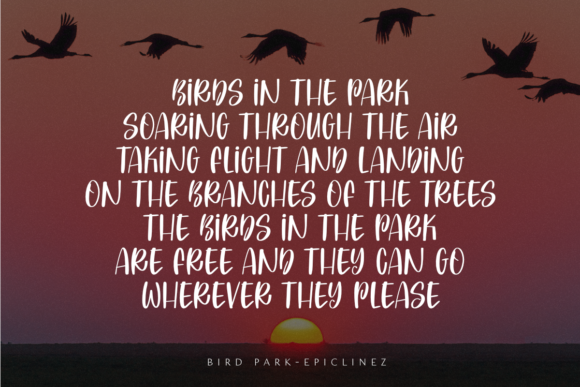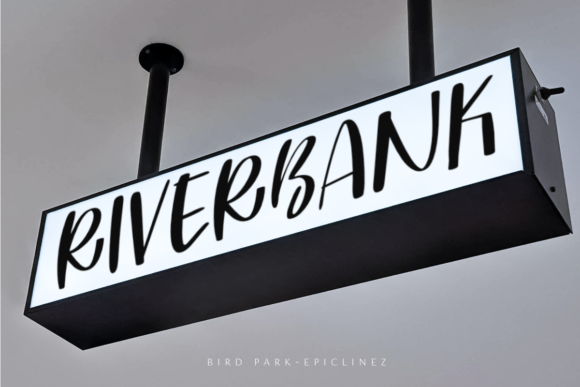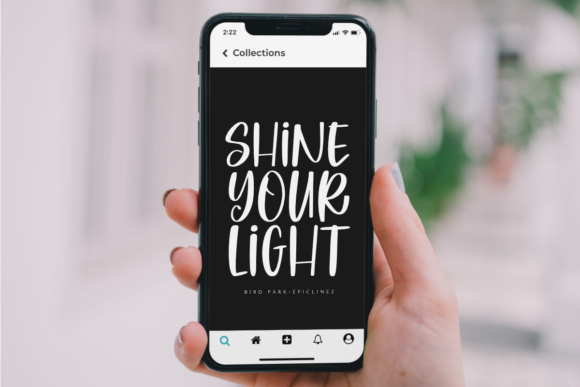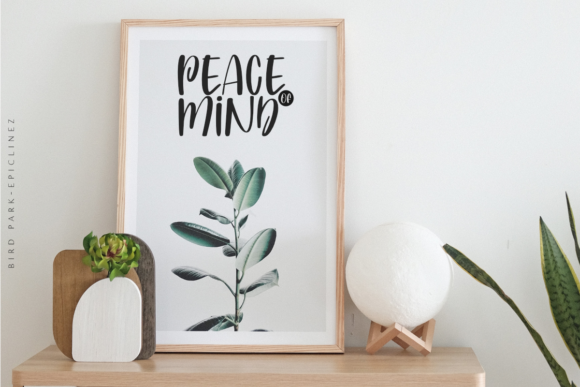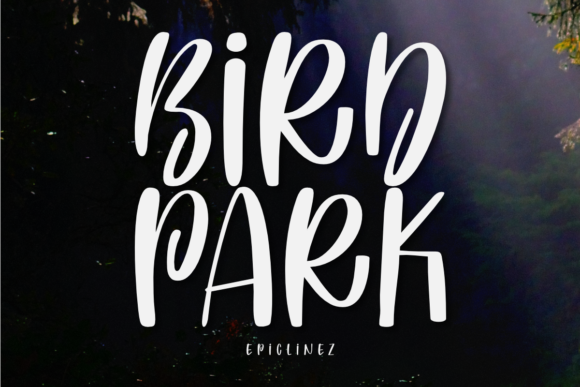
The Bird Park Font: A Playful and Smart Addition to Your Design Toolkit
Have you ever been in the middle of a design project, and suddenly, you just can’t seem to find the right font? I recall a particularly frustrating experience while working on a wedding invitation design. My client wanted something that was both playful and elegant, but I just couldn’t seem to find a font that fit the bill. That was until I stumbled upon the Bird Park font. In this article, we’ll dive into the world of Bird Park, exploring its features, how to use it, and what makes it so special.
A Personal Review: What I Love About Bird Park
So, what makes Bird Park so special? Here are a few things that I absolutely love about this font:
- ✨ Playful yet elegant: Bird Park strikes the perfect balance between playfulness and sophistication, making it perfect for a wide range of design projects.
- ✅ Highly versatile: From wedding invitations to business cards, Bird Park looks great on just about any design project that needs a customized touch.
- 💕 Cute and charming: Let’s face it – Bird Park is just plain cute! It’s the perfect font to add a touch of whimsy to your designs.
While Bird Park is an amazing font, it’s not without its quirks. Here are a few things to keep in mind:
- 🤔 Legibility at small sizes: While Bird Park looks great at larger sizes, it can become a bit tricky to read at smaller sizes. Be sure to test it out before committing to a particular design.
- ⚠️ Limited use in body text: Due to its playful nature, Bird Park is best used in short bursts – it’s not ideal for long blocks of body text.
The Backstory Behind Bird Park
While the origins of Bird Park are shrouded in mystery, it’s clear that the designer was inspired by the natural world. The font’s playful, whimsical feel is reminiscent of a stroll through a park on a sunny day. Whether or not the designer was actually inspired by birds, it’s clear that Bird Park is a font that’s all about joy and playfulness.
- Q: What type of designs is Bird Park best suited for?
- A: Bird Park is perfect for designs that need a playful, customized touch, such as wedding invitations, thank you cards, and greeting cards.
- Q: Is Bird Park a difficult font to read?
- A: While Bird Park is a playful font, it can be a bit tricky to read at smaller sizes. Be sure to test it out before committing to a particular design.